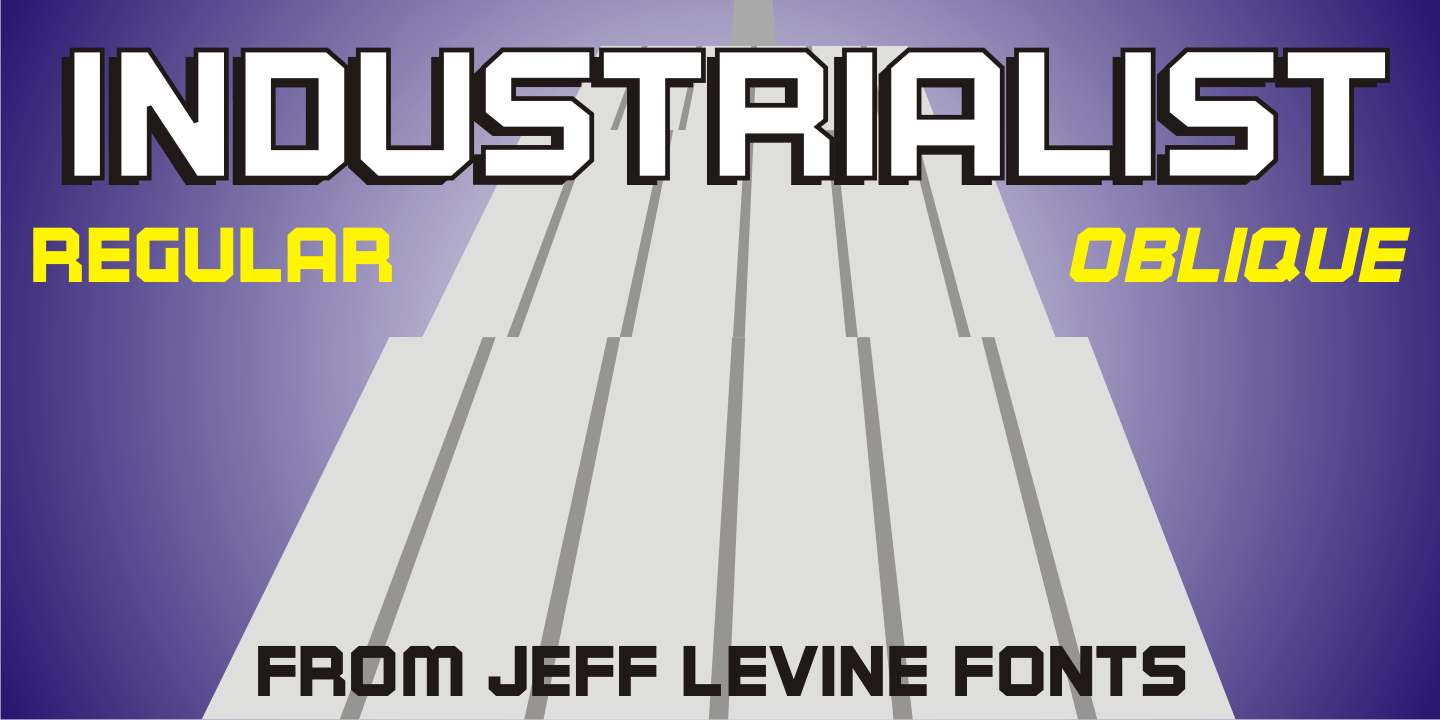
Industrialist
The chamfered block style of lettering has been a workhorse for years. From the early signage of the 1800s to military markings to the techno fonts of the 1980s and beyond, its clean and simple look gets the message across easily and boldly.
Industrialist JNL and its oblique partner were modeled from the title on a piece of sheet music from the 1940s.